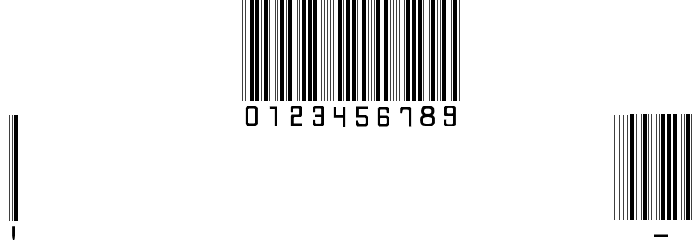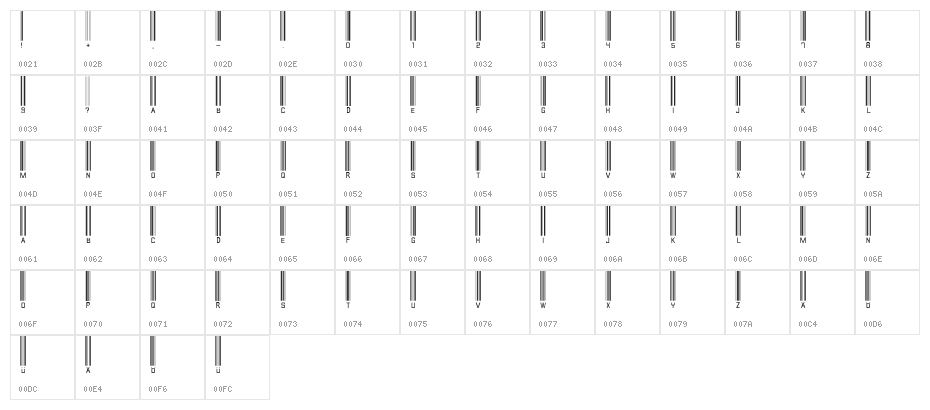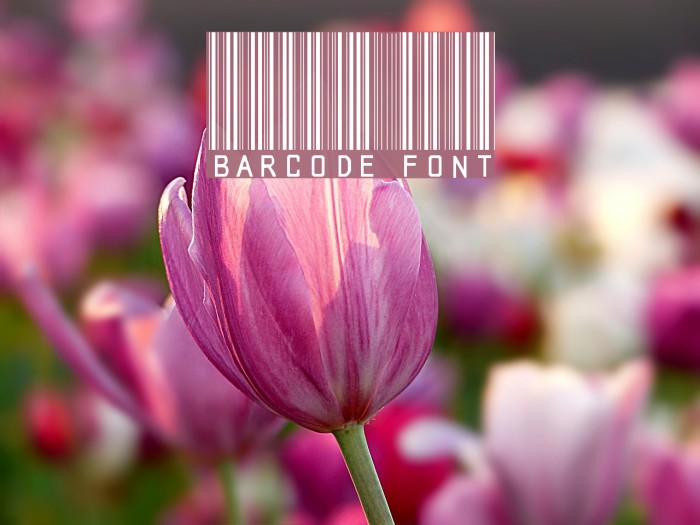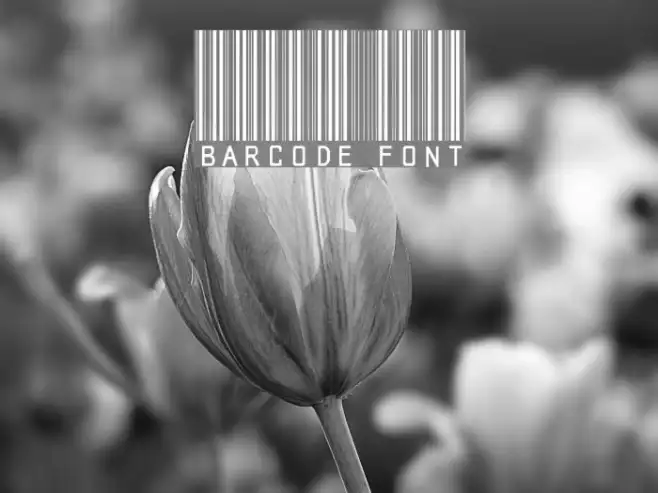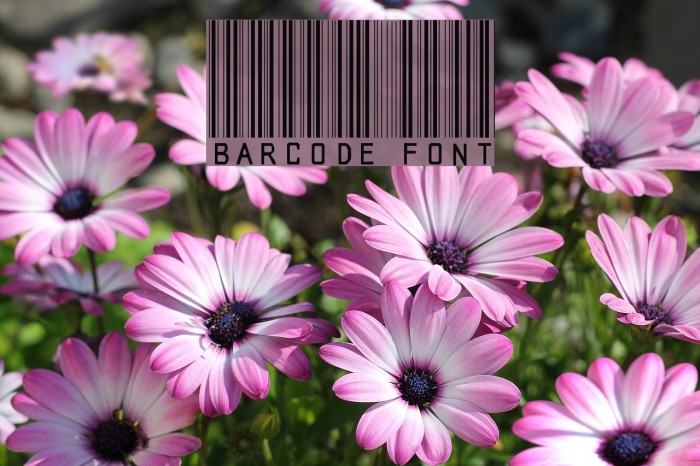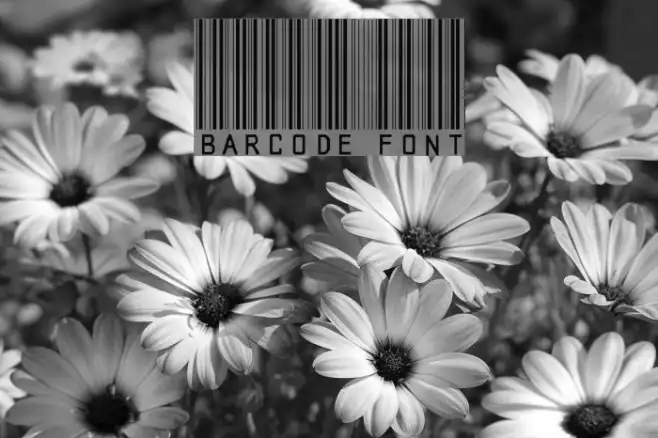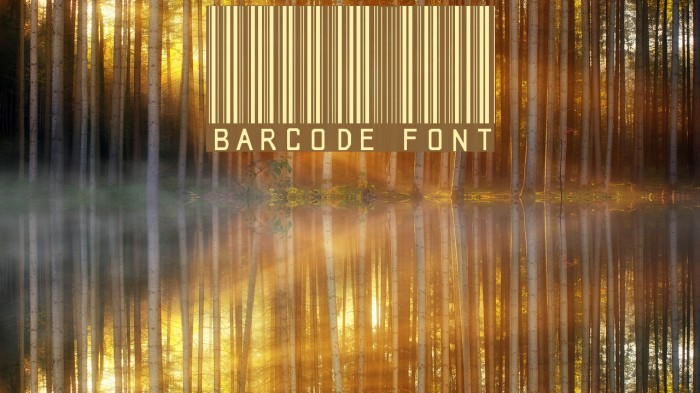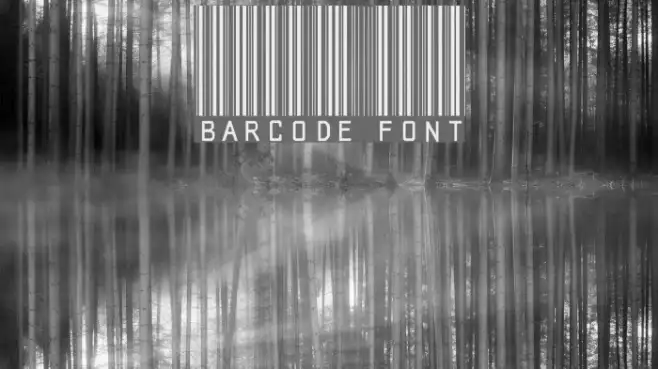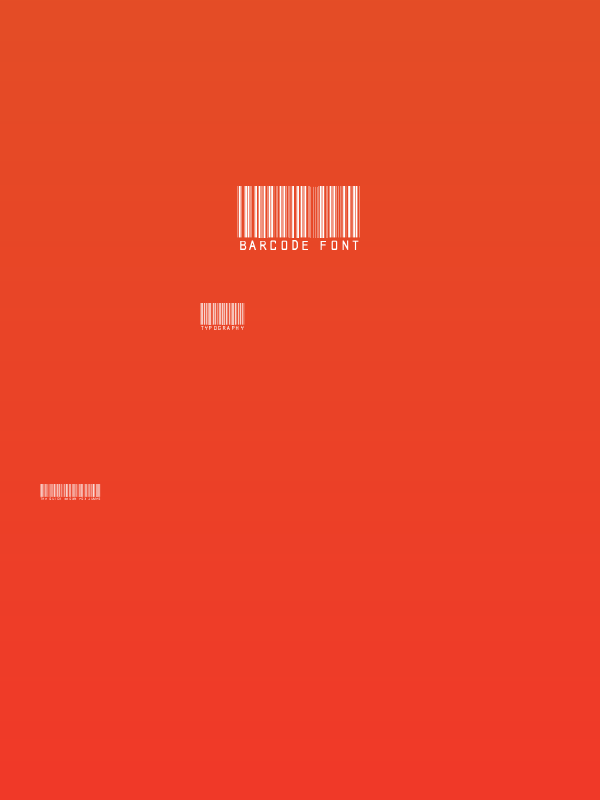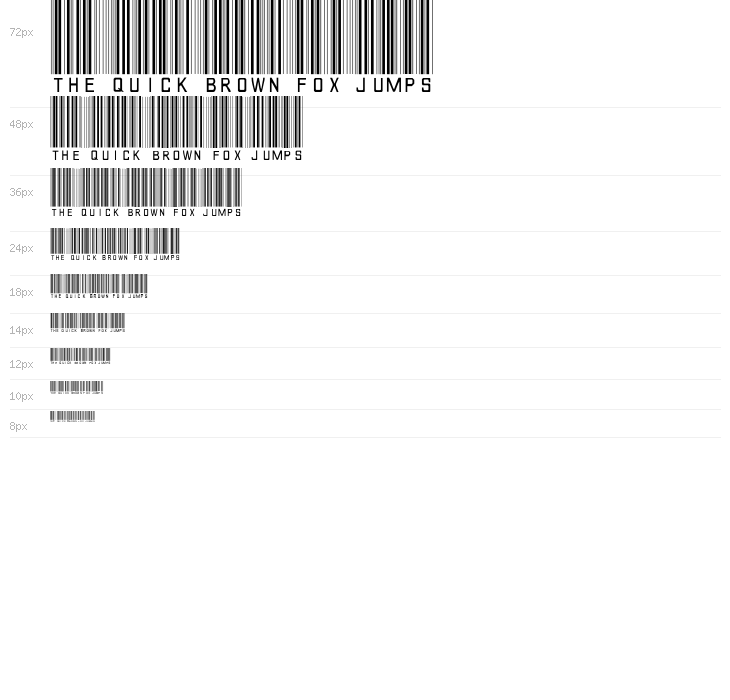
barcode font Font
barcode font Description
This font is designed to mimic the appearance of barcodes, featuring vertical lines of varying thicknesses that represent characters. Each character is represented by a unique pattern of bars, making it ideal for encoding information in a visually compact form. The font is highly structured and geometric, with a focus on precision and clarity. It is not intended for traditional text display but rather for applications where data encoding is required. The design is utilitarian, prioritizing function over aesthetic appeal, and is commonly used in retail and inventory management systems.
| Overall Style | Utilitarian |
| Use Case | Data encoding, Retail labeling |
| Proposed Projects | Ideal for projects involving inventory systems, retail product labeling, or any application requiring data encoding in a barcode format. |